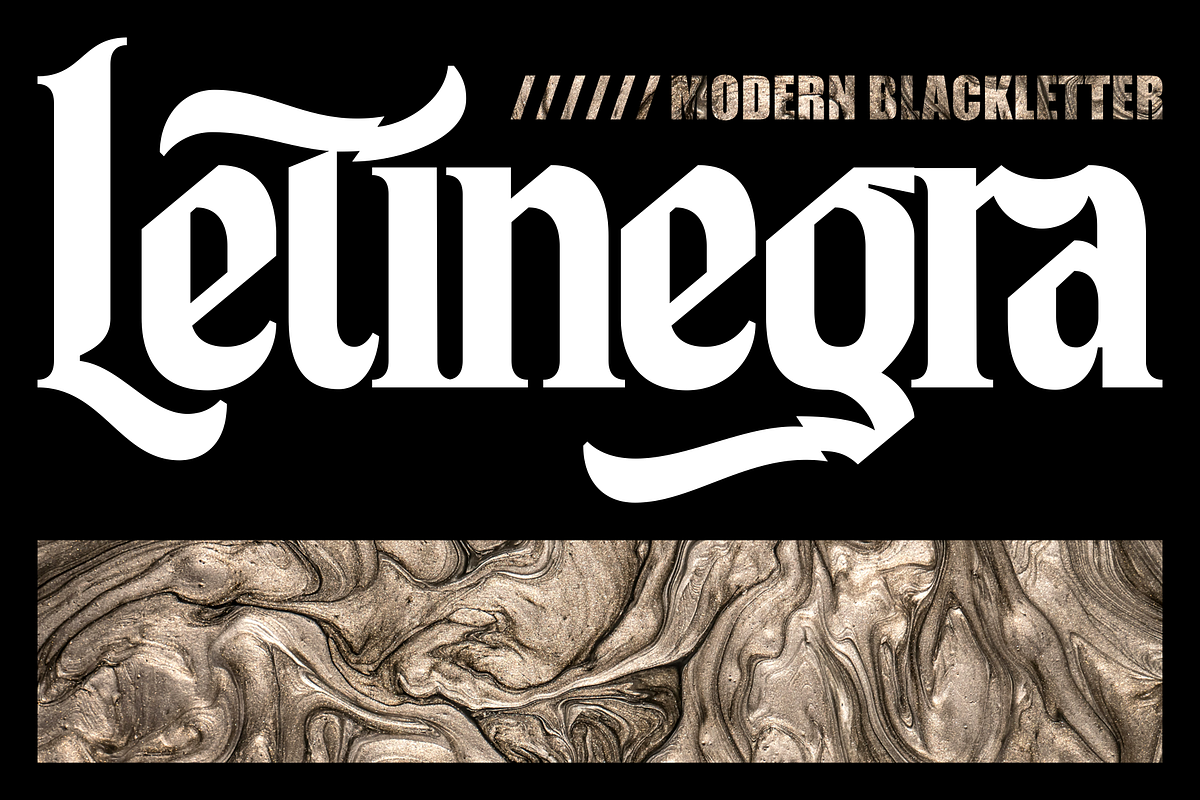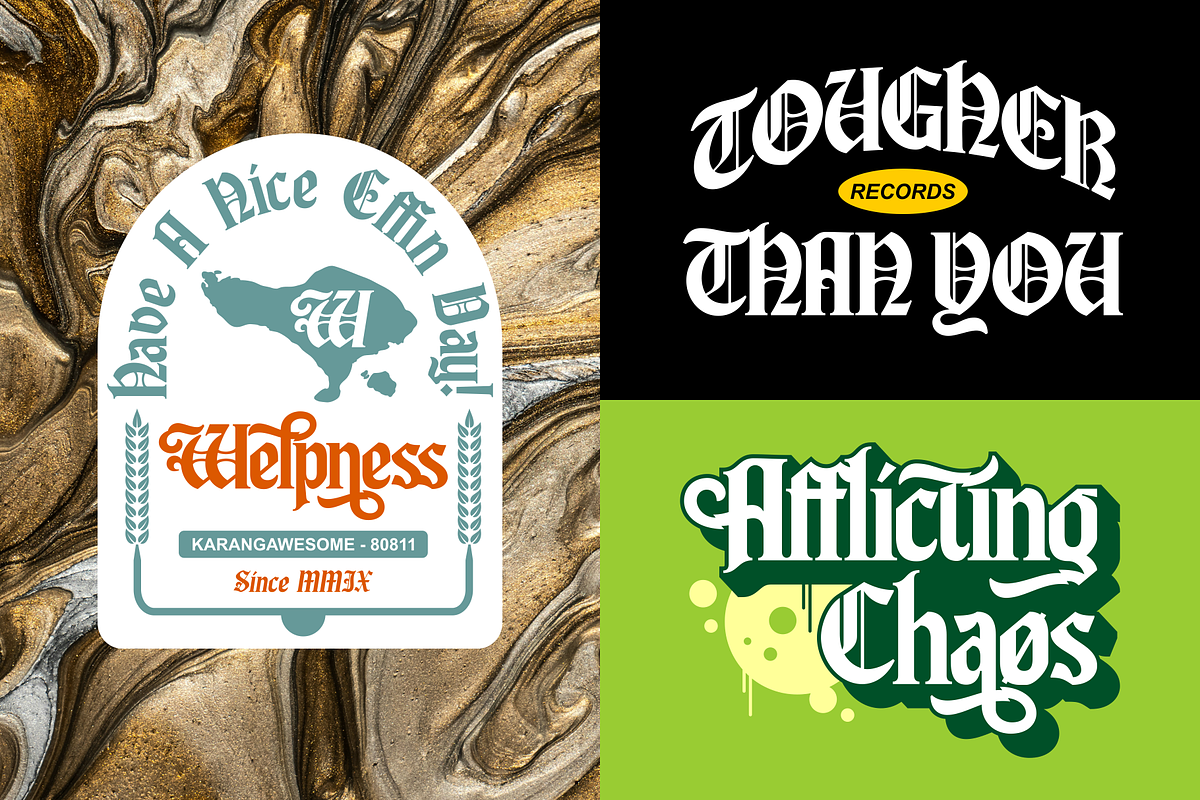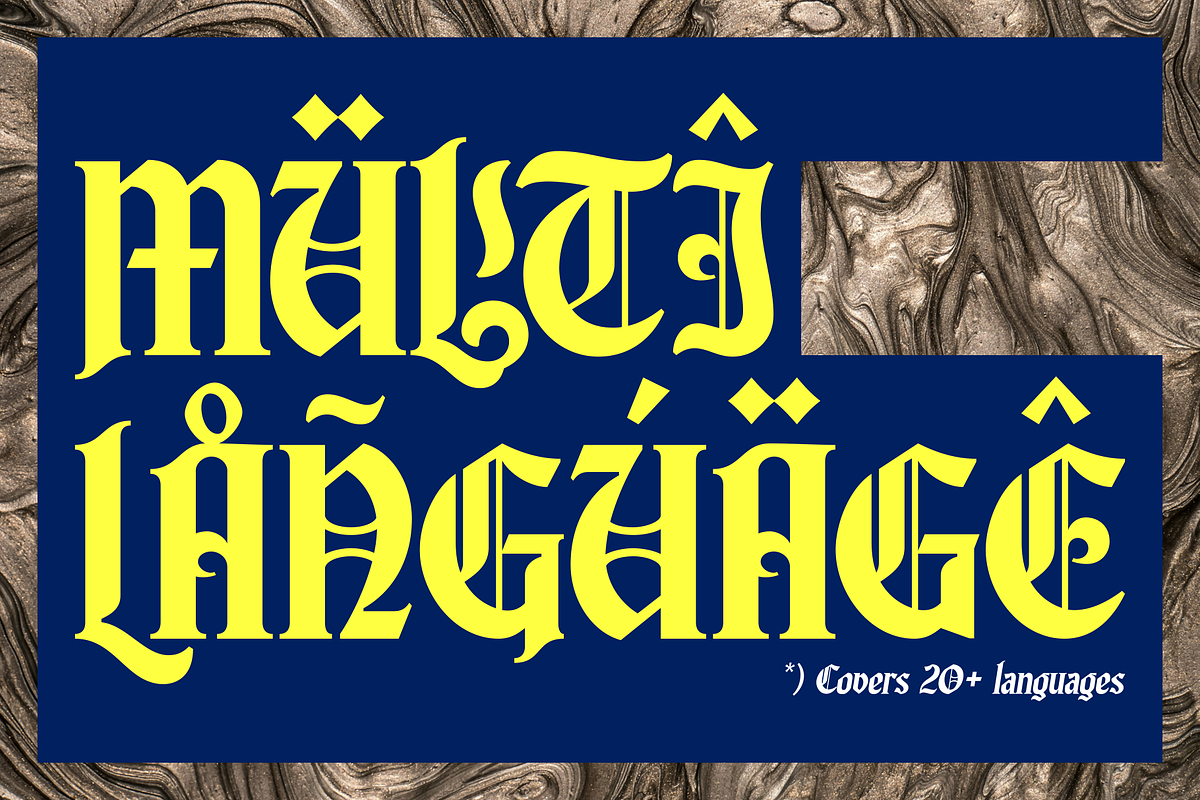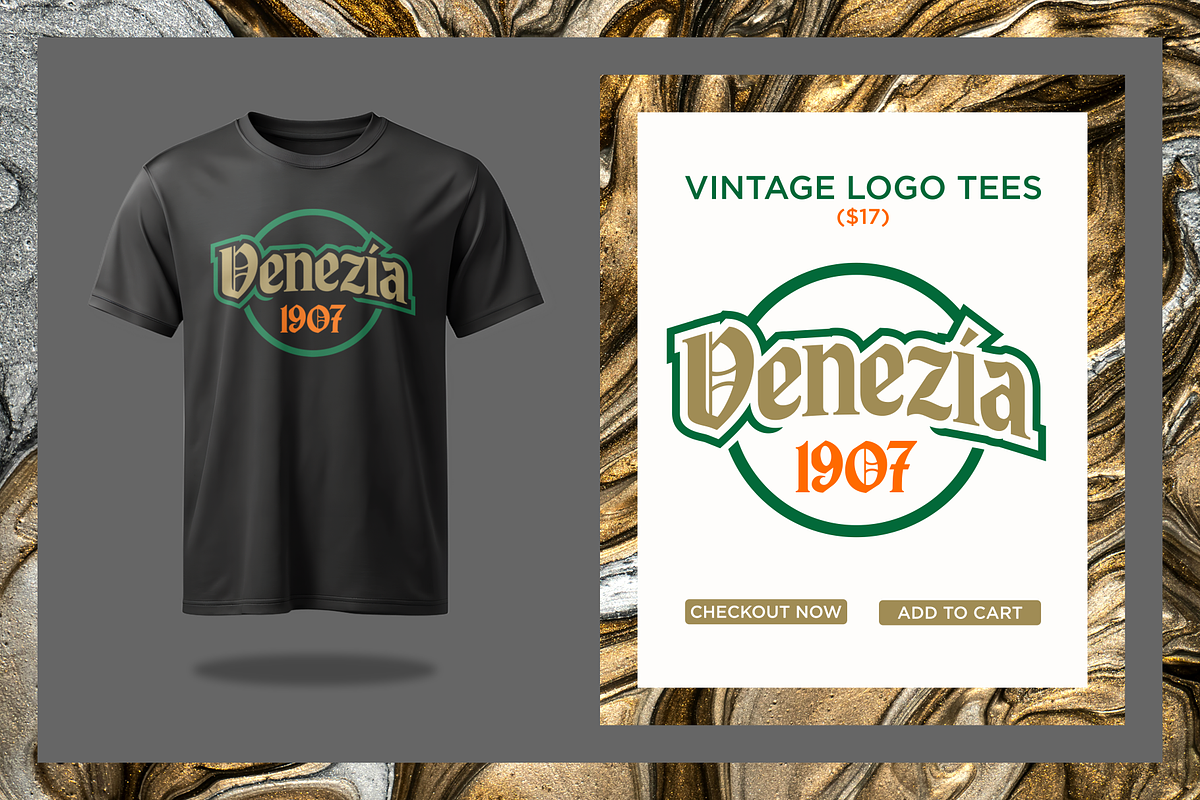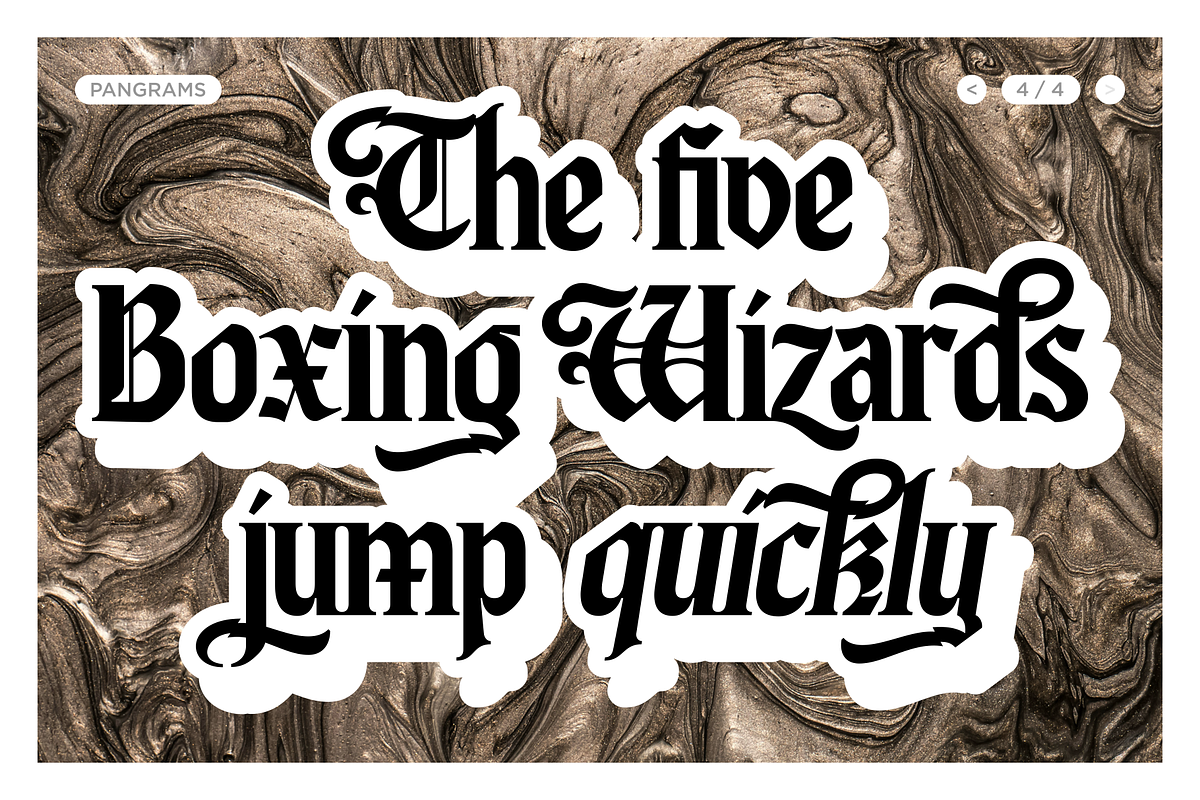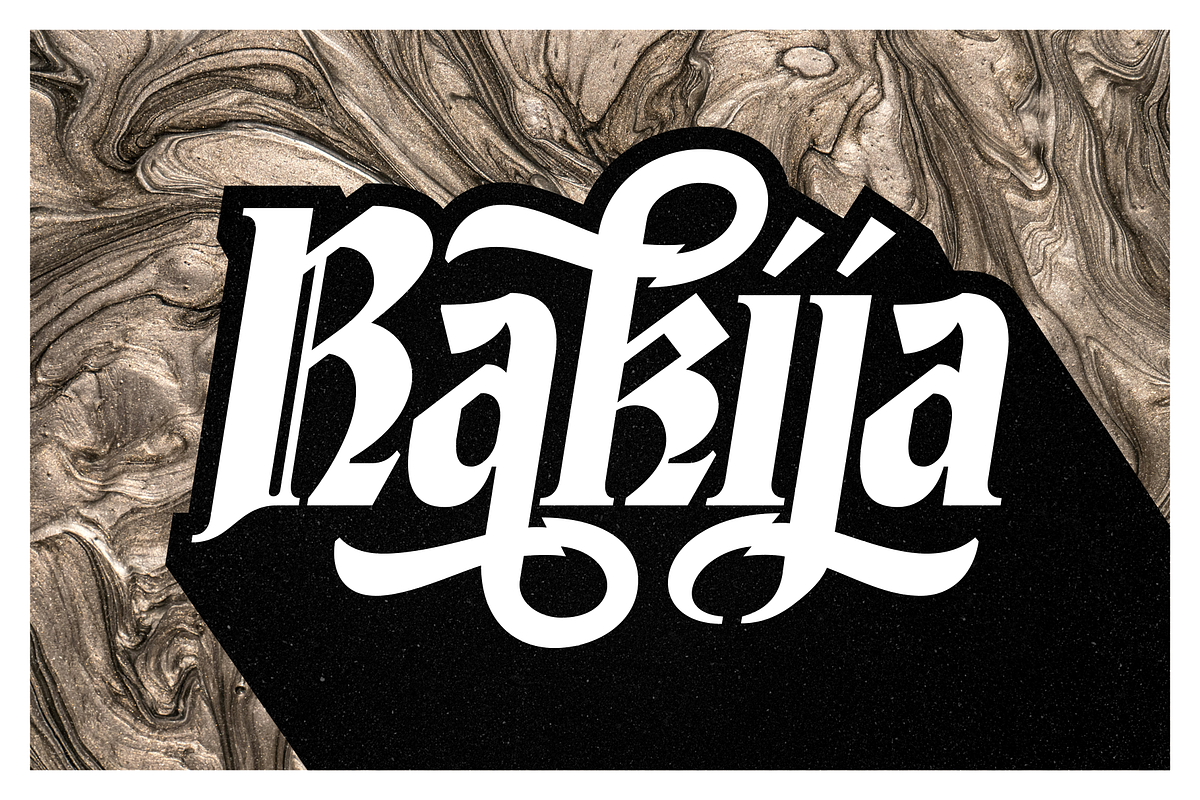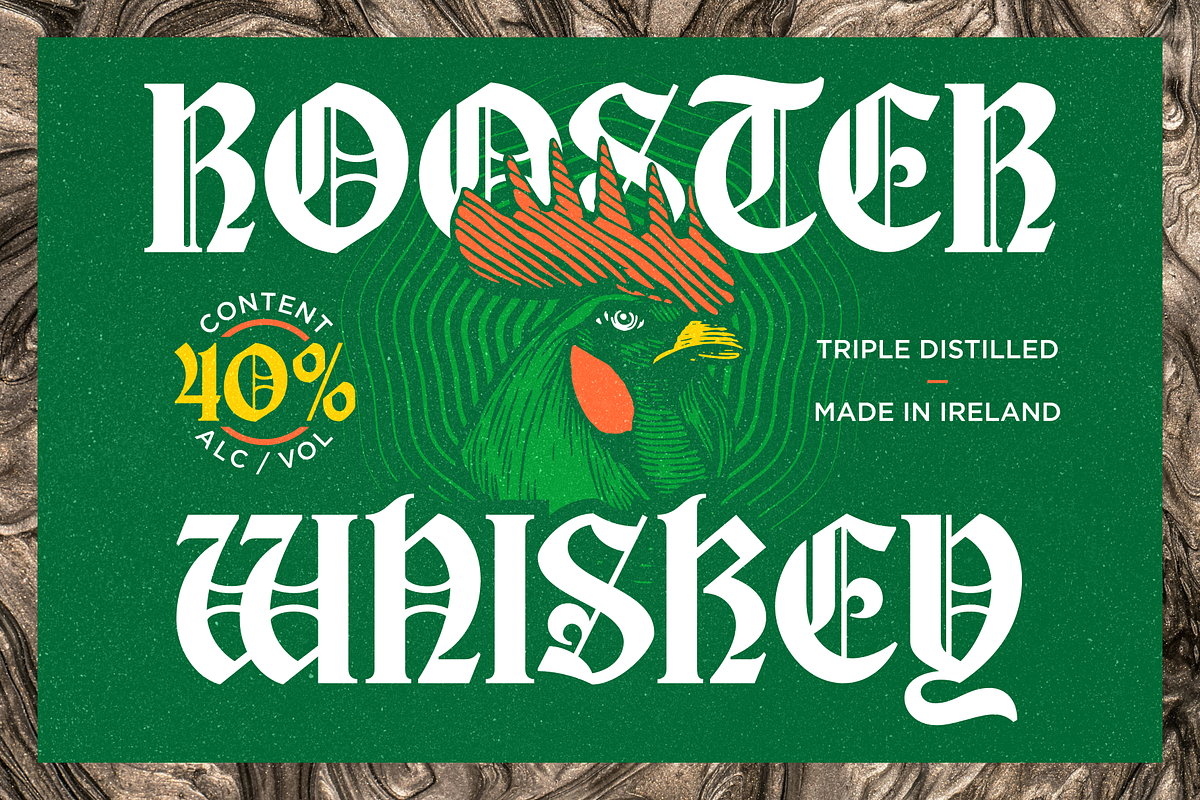
Letinegra | Modern Blackletter
Introducing our latest release: Letinegra a modern blackletter serif font. Crafted carefully with major inspiration from 17th century typography. Made with high attention to the crisp-edge details, smooth curves, and peculiar forms. Some alternate characters (swashes and ligatures also) added to elevate your game. This font will be a great addition for your design arsenal, suits best for logo, t-shirt/print design, headlines, movie/book title, etc.
- Standard characters, numerals, punctuations, alternate & stylistic characters, swashes and ligatures (OpenType Standard encoding),
- Available in multilingual languages, e.g : Afrikaans, Albanian, Catalan, Croatian, Czech, Danish, Dutch, English, Estonian, Finnish, French, German, Hungarian, Icelandic, Italian, Lithuanian, Maltese, Norwegian, Polish, Portuguese, Slovenian, Spanish, Swedish, Turkish, Zulu, etc),